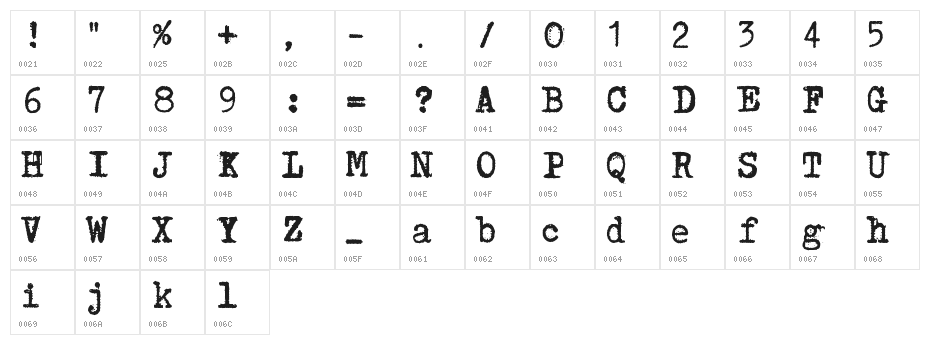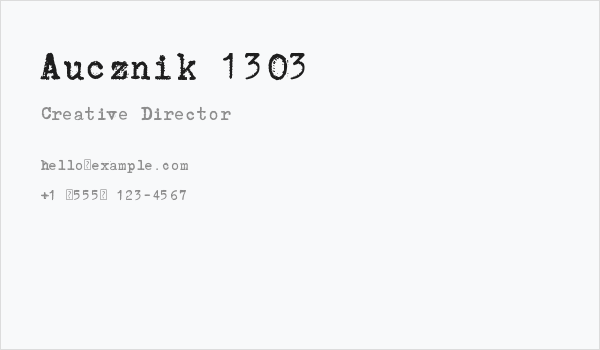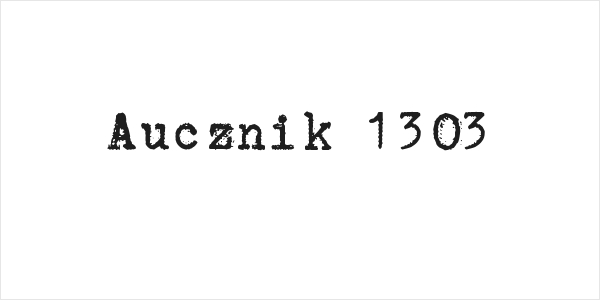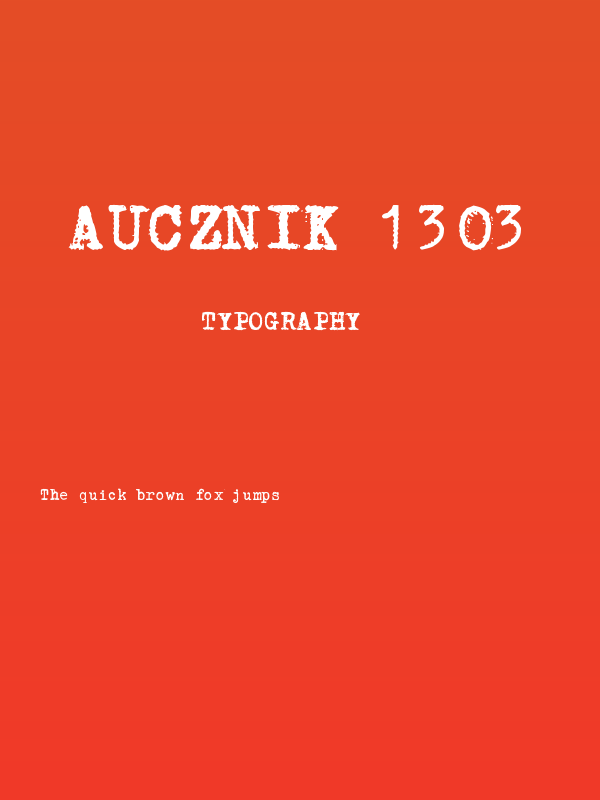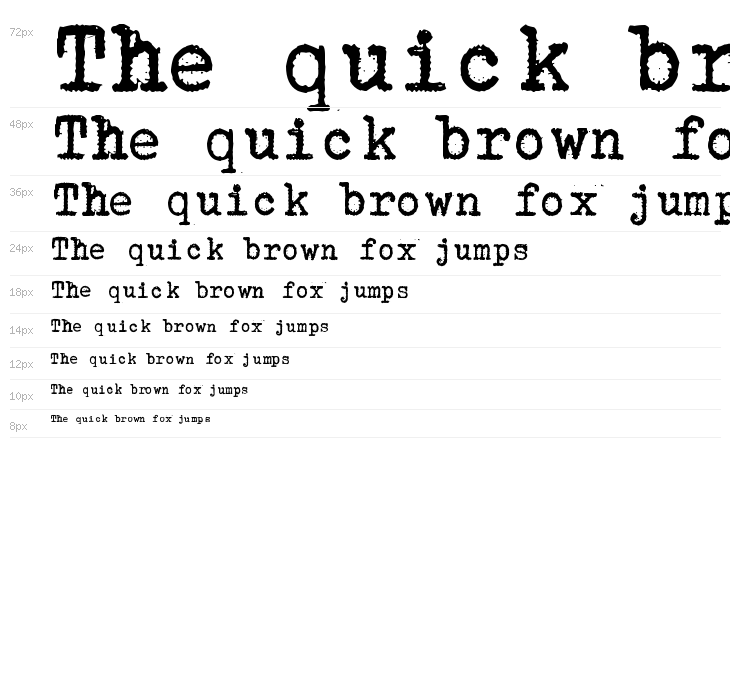
Aucznik 1303 Font
Aucznik 1303 Description
This font exhibits a rugged, distressed appearance reminiscent of vintage typewriter styles. The characters are bold and have a textured, worn look, giving them a unique, handcrafted feel. The uppercase and lowercase letters maintain a consistent style, with slightly irregular edges that add to the font's charm. Numbers and special characters follow the same aesthetic, making this font ideal for projects that require a touch of nostalgia or a retro vibe. The overall impression is one of authenticity and character, perfect for designs that aim to evoke a sense of history or personal touch.
| Proposed Projects | Ideal for vintage-themed posters, retro branding, book covers, and creative projects that require a nostalgic touch. |